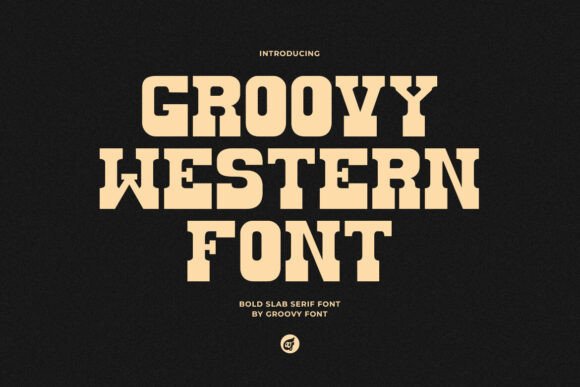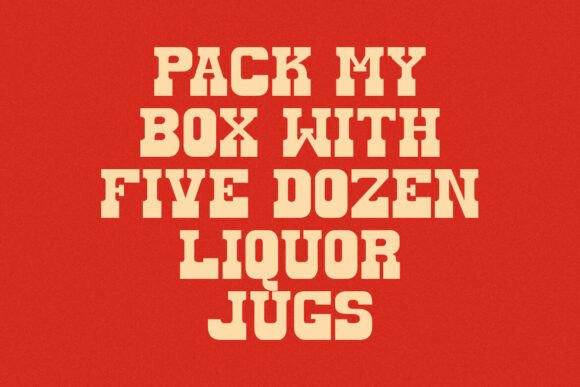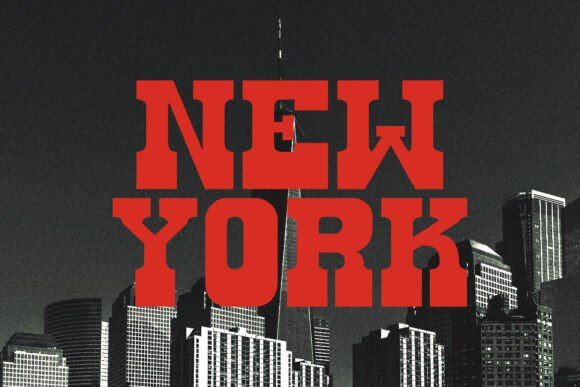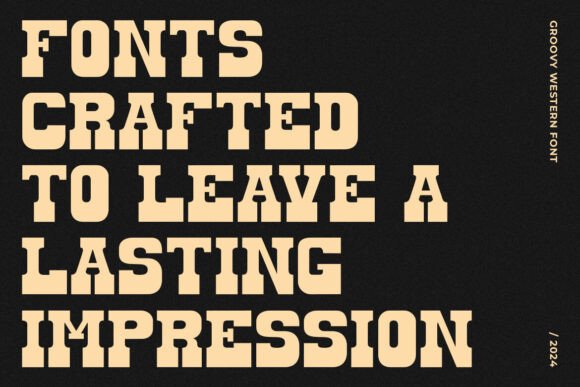
Groovy Western Font
About the Groovy Western Font
From logos to headlines, the Groovy Western Font is the perfect choice for making a lasting impression. Groovy Western is a bold slab serif font that combines elements of vintage typewriting with a modern Western twist.
Its strong, thick lines and sturdy serifs give it a bold presence, making it a unique choice for designs that require a touch of ruggedness and sophistication.
Whether used for headlines, logos, or branding, Groovy Western is sure to make a statement with its distinctive retro charm.
Groovy Western excels in headlines, short text blocks, logos, and branding applications where a bold, retro-inspired aesthetic is desired. Its strong visual presence makes it ideal for projects conveying themes of adventure, Americana, or rugged sophistication – think whiskey labels, Western-themed events, or outdoors brands. Avoid using it for body copy or lengthy text; its weight and width make extended reading difficult.
Pairing Groovy Western effectively requires considering its bold, slab-serif structure. A clean sans-serif like Open Sans or Montserrat would provide a strong contrast and enhance readability in supporting text. For a more vintage feel, a complementary serif like Playfair Display could add a touch of elegance without clashing.
The font’s personality is best described as bold, confident, and slightly rebellious. Its retro charm adds a layer of approachability, preventing it from feeling overly aggressive. This makes it suitable for brands seeking a distinctive yet accessible voice.
Groovy Western Font Usage Examples
Groovy Western Font Example